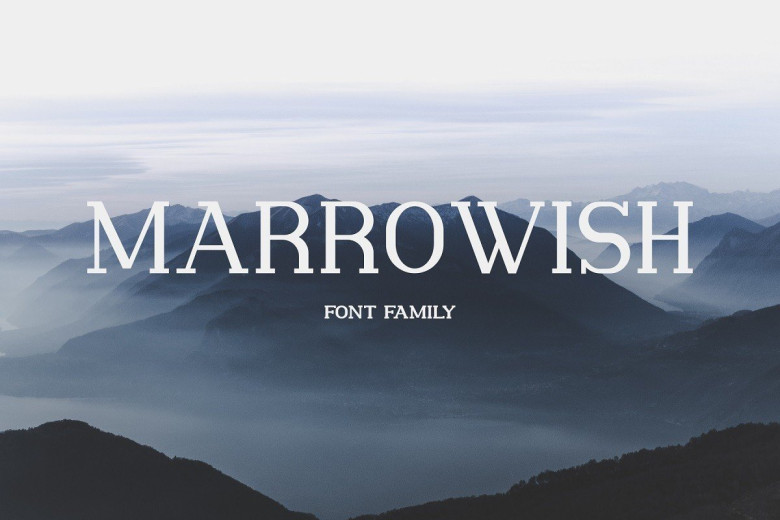
Marrowish Slab Serif Font
Marrowish Font is a sophisticated & simple slab serif typeface. Works great for logos & titles on a large or small scale. Providing a professional look to your design, Marrowish is bold and confident with an honest and authentic feel.
Perfect as a heading, in branding, on business cards, in posters and flyers, used on invitations and many more! This font is free for PERSONAL USE. Link to purchase full version and commercial license: HERE